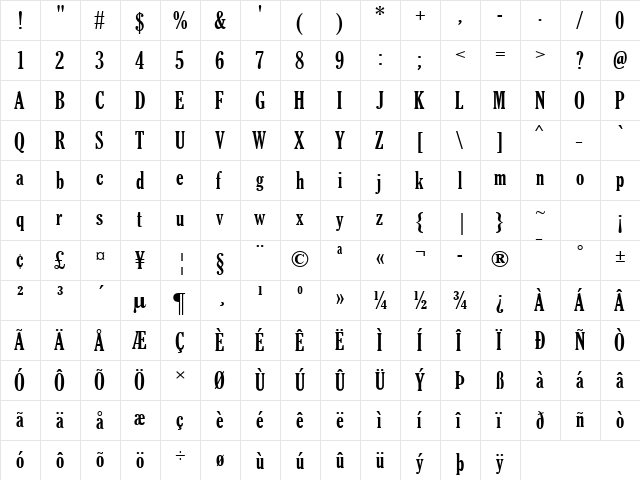
Gloucester MT Extra Condensed Regular
Design Context for Gloucester MT Extra Condensed Typeface
Gloucester MT Extra Condensed takes a measured approach to typography — its balanced proportions and neutral character make it a reliable workhorse for both digital and print work. The condensed width makes it efficient for tight spaces without sacrificing legibility.